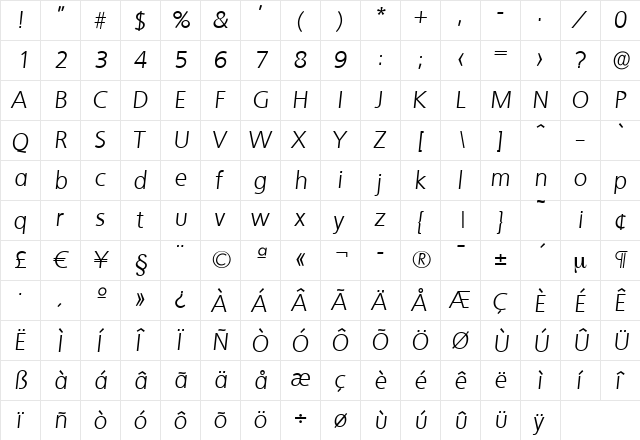
LarryBecker-Light Italic Font Preview
Design Context for LarryBecker-Light Typeface
LarryBecker-Light offers clean, dependable letterforms without strong stylistic allegiance, making it a practical choice for designers who need flexibility. The slanted form adds forward momentum and visual energy. The delicate stroke weight brings airiness and refinement to layouts.
Pro Tip: Try LarryBecker-Light for annotation and caption copy alongside an upright companion — the contrast in angle creates a dynamic but ordered typographic system.